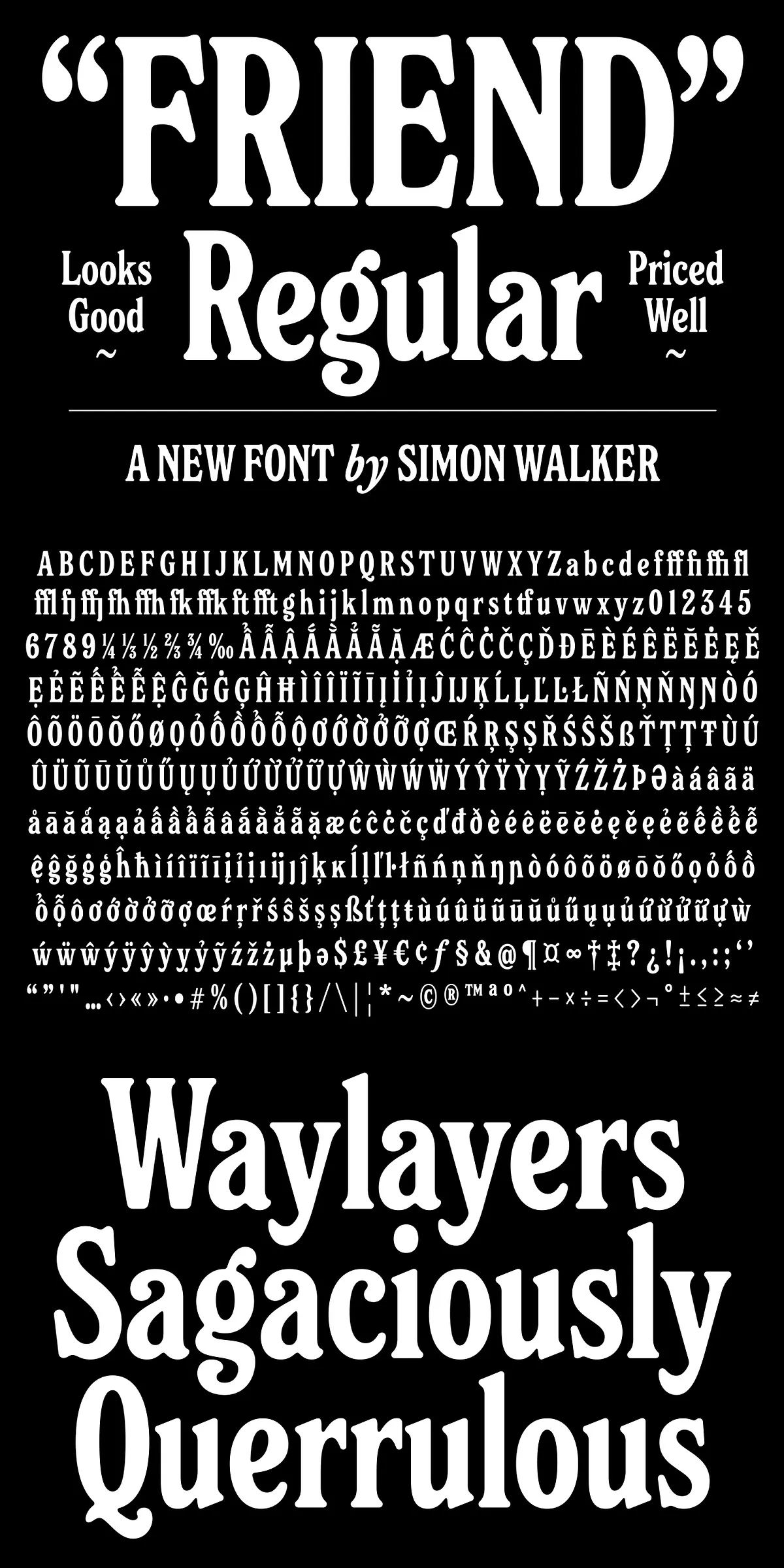
Friend Regular delivers a warm, approachable voice while maintaining clarity and professional polish. Built as a tall rounded-serif, this typeface balances humanist curves with structured proportions to create a friendly but confident presence. Designers who want typography that speaks directly to audiences will find Friend Regular both expressive and dependable. Its tall x-height improves legibility at display sizes, and the rounded terminals soften the overall tone, producing headings and logotypes that feel inviting rather than severe.
Unlike cold geometric serifs, Friend Regular actively encourages readability and emotional connection. Use it to anchor headlines, craft standout logos, and give product packaging a human touch. The italic variant complements the upright style by introducing elegant motion and emphasis without losing the family’s core personality. When combined, the upright and italic forms create dynamic typographic rhythms that draw attention without overwhelming the layout.
Distinctive Features That Make Friend Regular Work Harder
Friend Regular includes several intentional design choices that improve its performance across media. The generous x-height and open counters keep letterforms readable at larger display sizes and when used in short blocks of text such as quotes or callouts. The rounded terminals reduce visual tension and create smoother word shapes, which benefits both print and screen reading. Careful spacing and balanced stroke contrast ensure the font holds presence in bold headings while remaining graceful in lighter settings.
- Friendly, tall rounded-serifs for human-centered typography.
- Italic companion that adds graceful emphasis and motion.
- Clear letterforms optimized for display sizes and headlines.
- Well-considered spacing that supports both all-caps and mixed-case treatments.
Applications Where Friend Regular Performs Best In Practice
Brand Identity, Logos, And Packaging That Connect
Friend Regular actively enhances brand equity by conveying warmth and clarity. Use it for logos, wordmarks, and packaging to create approachable brand personalities. Pair a medium-weight upright for logotypes with the italic for submarks or secondary messaging to establish visual hierarchy. The rounded details work particularly well for lifestyle brands, cafes, boutiques, and wellness labels where human connection matters.
Editorial Headers, Pull Quotes, And Poster Typography That Command Attention
Designers can rely on Friend Regular to headline editorial spreads, posters, and social graphics. Its tall proportions allow for strong, compact headlines that maintain legibility across sizes. For pull quotes and feature highlights, the italic provides emphasis that feels organic and sophisticated. Because the design scales cleanly, you can confidently set it at large sizes without losing nuance.
Web Interfaces And Digital Experiences That Require Readability
Friend Regular adapts to digital environments thanks to clear counters and open shapes that render crisply on screens. Use it for hero headers, landing page titles, and in app interfaces where a friendly tone improves user perception. When used with responsive typography techniques, the typeface preserves its character from desktop down to mobile.
Friend Regular actively improves visual communication by combining friendly letterforms with reliable technical foundations. Whether you are building a brand identity, composing editorial layouts, or designing digital interfaces, this typeface gives your work a warm, professional voice. Preview the sample PDF linked above to see the full character set and practical examples of Friend Regular in action, then integrate the files into your design system to begin crafting readable, approachable typography that connects.